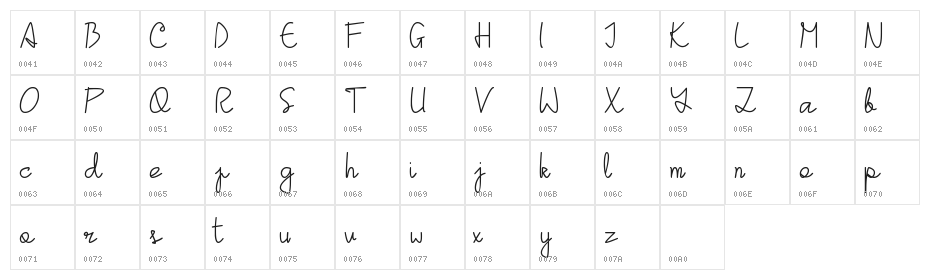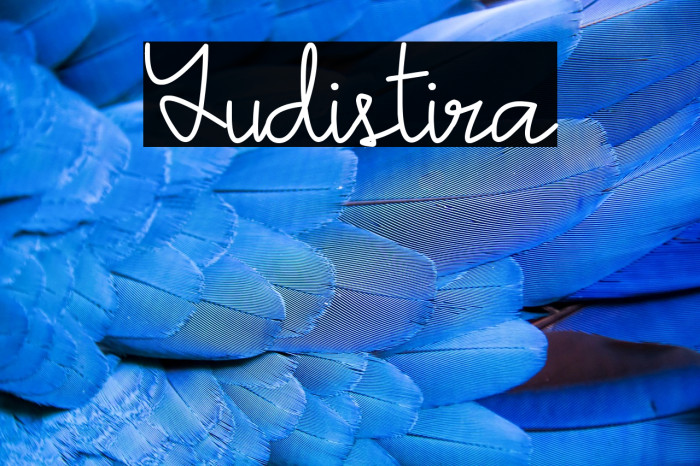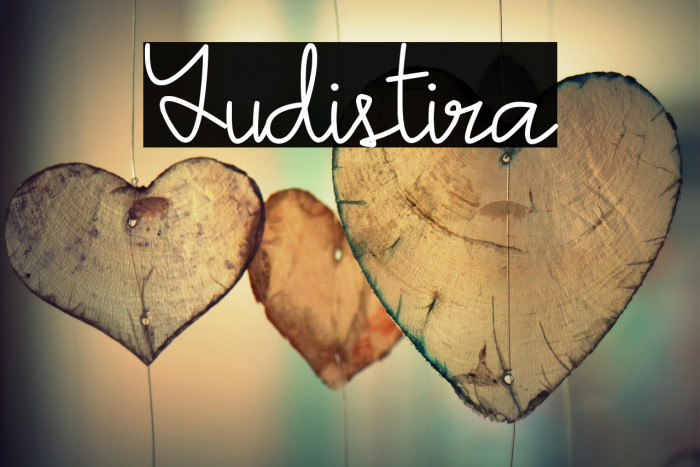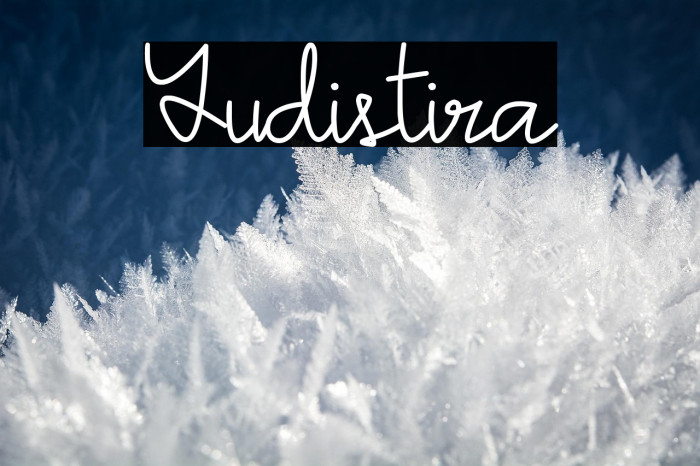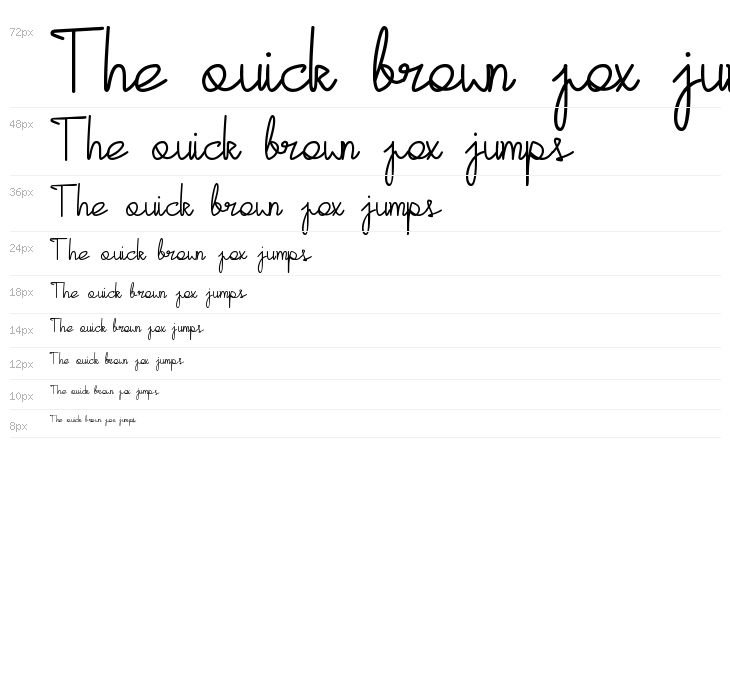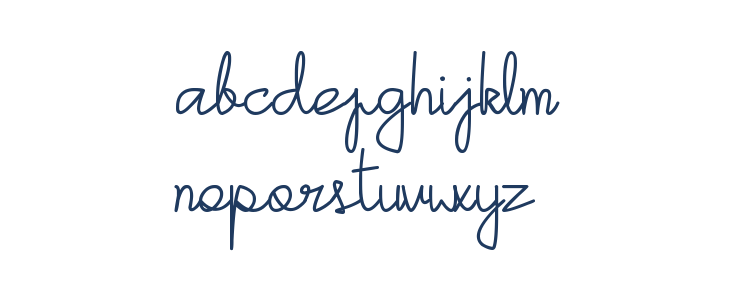
Yudistira Font
Yudistira Description
This font features a playful and casual handwritten style, characterized by its flowing, connected letters that mimic natural handwriting. The uppercase letters are bold and slightly angular, while the lowercase letters exhibit a more fluid and cursive appearance. The strokes are consistent in thickness, providing a uniform look across all characters. The font maintains a whimsical and informal tone, making it suitable for creative and personal projects. The numerals and special characters are designed to match the overall style, ensuring coherence throughout. Its unique charm and readability make it a versatile choice for various design needs.
| Proposed Projects | Ideal for greeting cards, invitations, personal branding, and creative projects. |